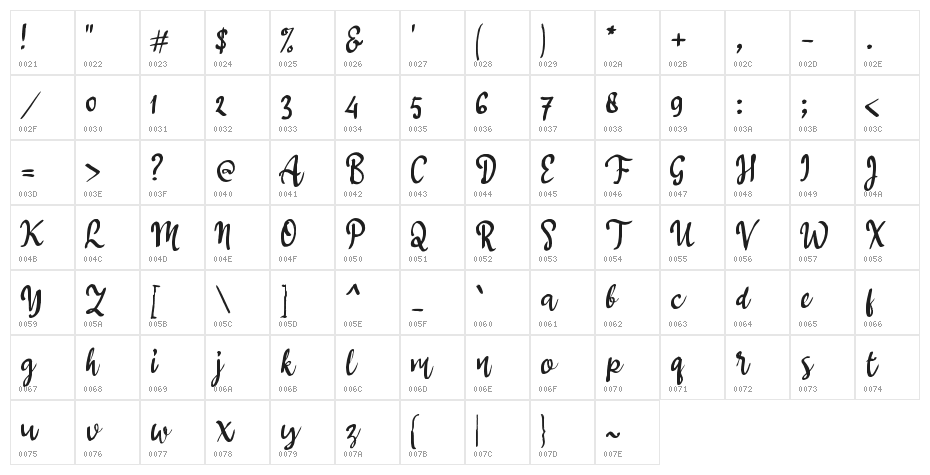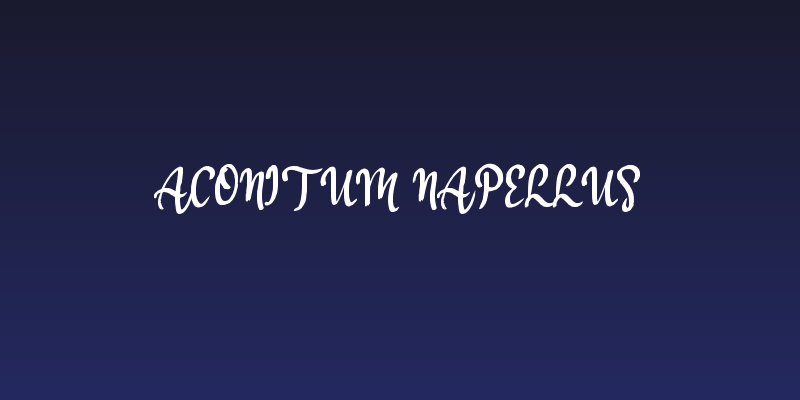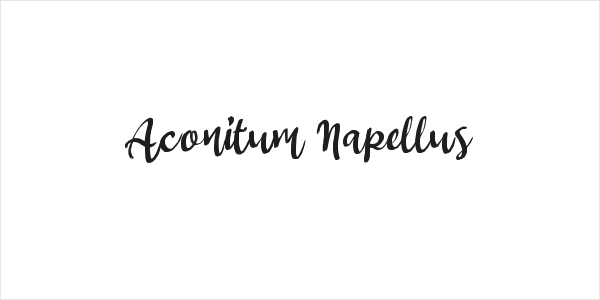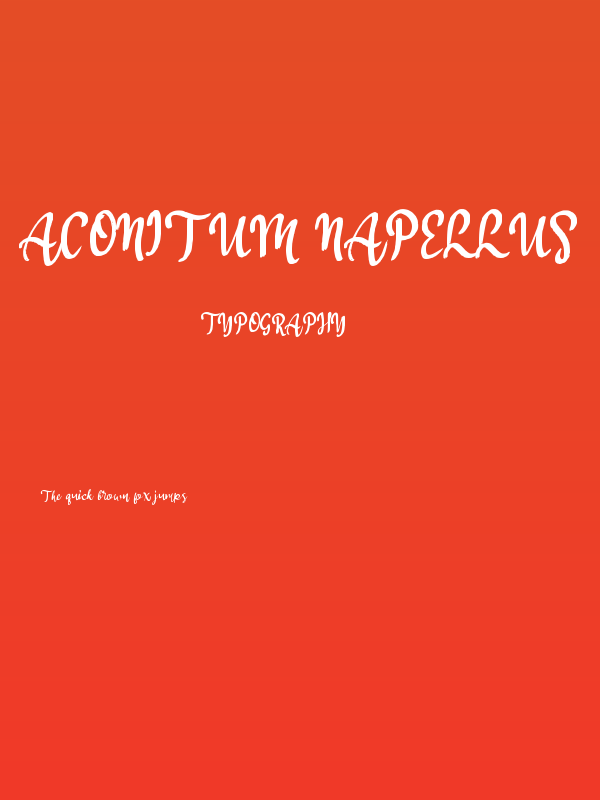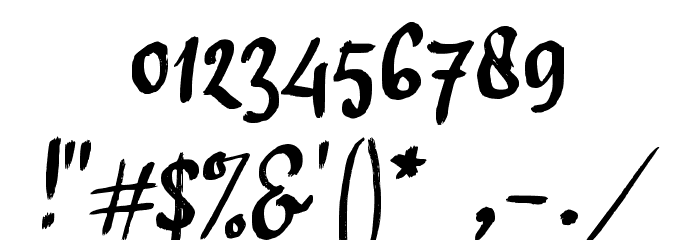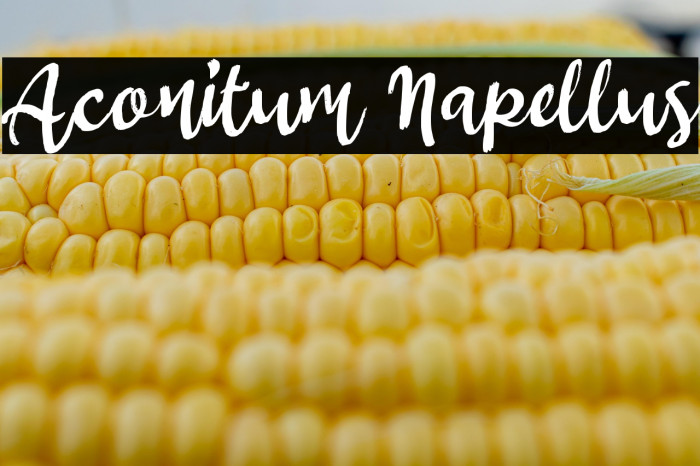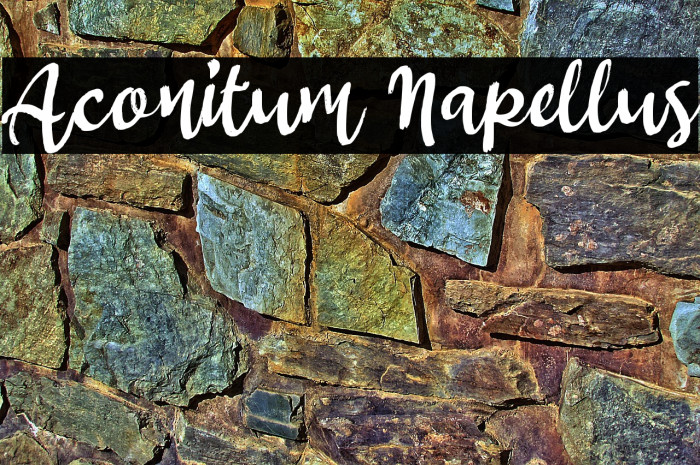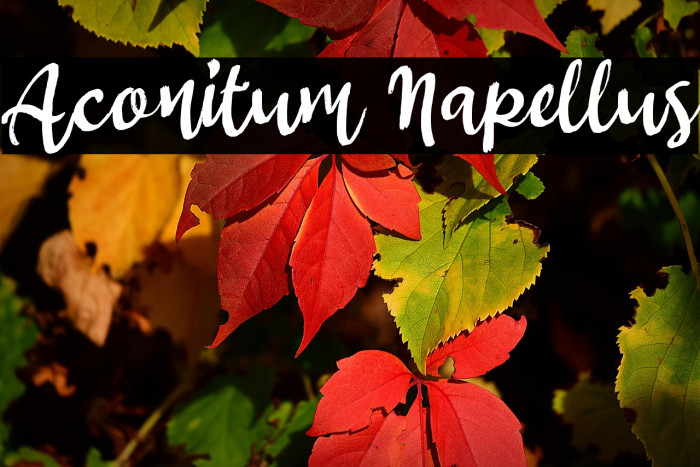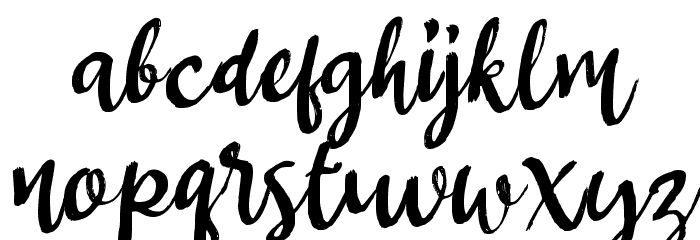
Aconitum Napellus Font
This font features a dynamic and expressive handwritten style, characterized by its fluid and cursive letterforms. The strokes are bold and have a brush-like texture, giving it an artistic and organic feel. The uppercase and lowercase letters maintain a consistent style, with some letters having distinctive flourishes and loops that add to its charm. The numerals and special characters are crafted with the same attention to detail, ensuring a cohesive look across all glyphs. This font is ideal for projects that require a personal touch or an artistic flair.
| Proposed Projects | Ideal for greeting cards, invitations, branding, and artistic posters. |